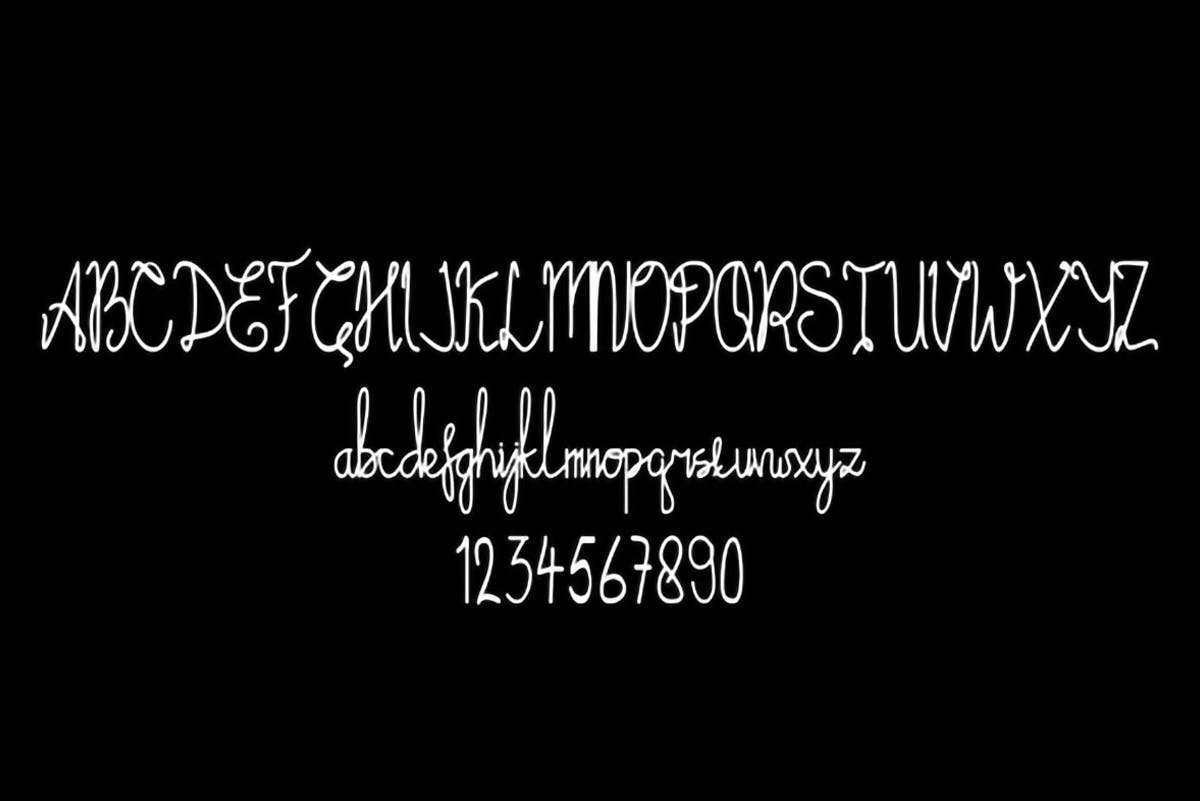
Free Demo Emalia Handwriting Script Font
Free Demo Emalia Handwriting Script Font is a beautiful script font. It is suitable for your projects such as packaging, t-shirt, print template, magazines, and more. This font is available for the OTF format file that you can install on your devices. This font also consists of a web font that you can use on your website or blog. However, this demo font can only be used for a personal license, if you want to touch it more, go purchase the premium version.